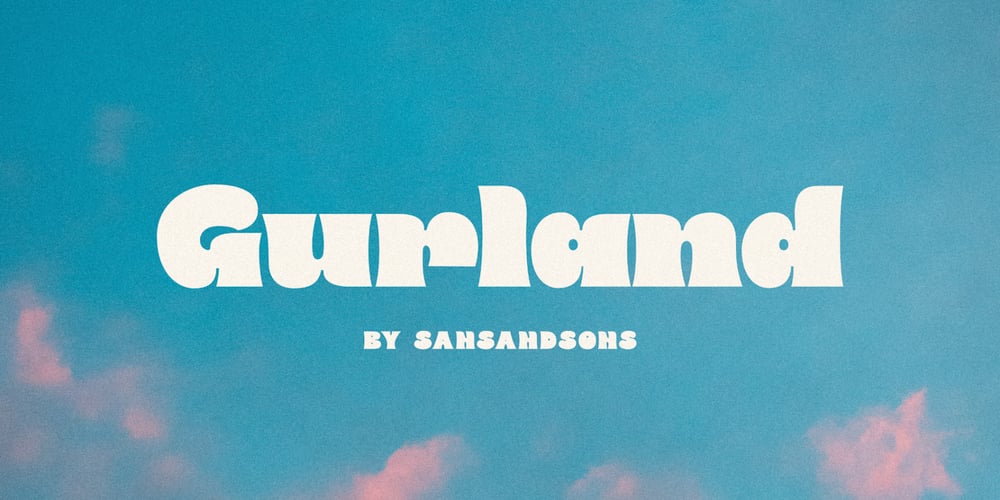
Gurland Font Family was designed by Angga Suwista and published by Sans And Sons. Gurland contains 1 styles and family package options. Meet our Gurland – Bold Retro Elegant Serif FontA captivating blend of boldness and timeless charm. This font exudes an elegant, vintage vibe with its strong, distinctive serifs and bold strokes. Perfect for making a statement with a touch of retro sophistication.